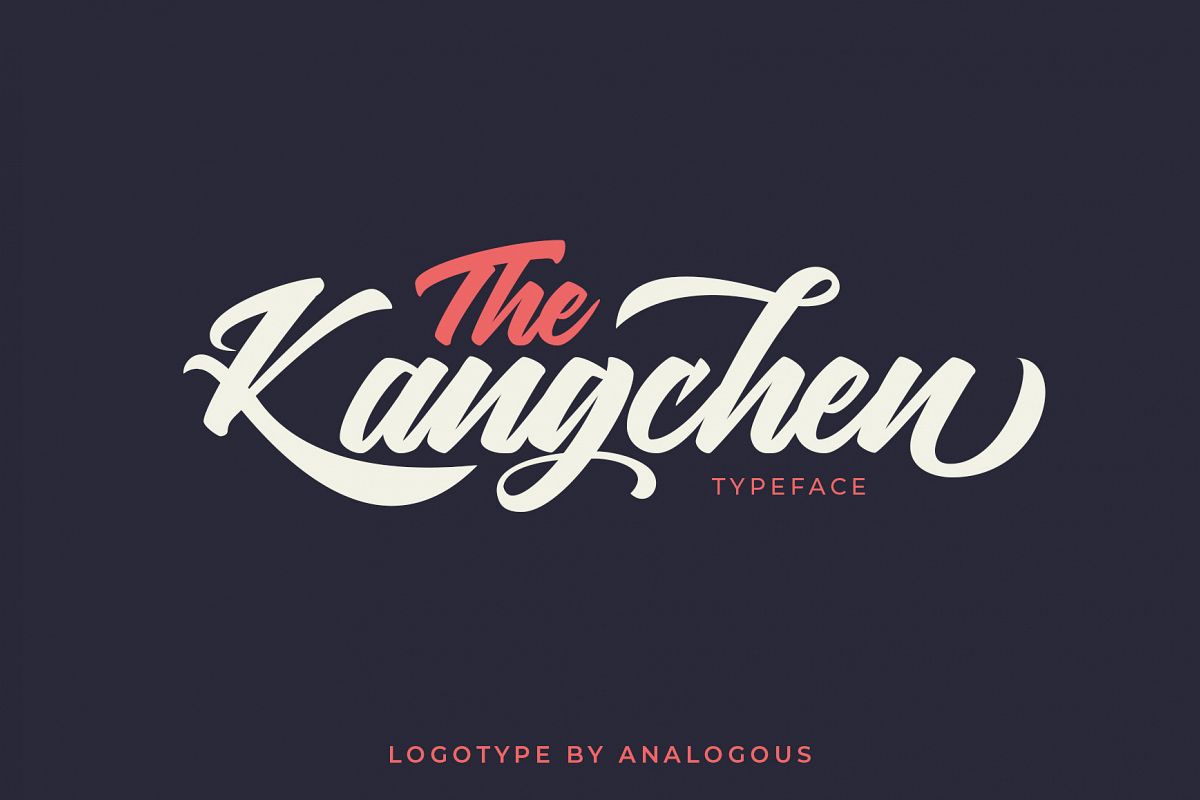
Kangchen
Kangchen is a brush script font with a dynamic and energetic style. It can used for various purposes such as titles, signatures, logotypes, t-shirt designs, letterheads, signage’s, labels, newsletters, posters, badges, and every other design which needs an unique, striking font.
Multilingual Support
Number,
Punctuation.